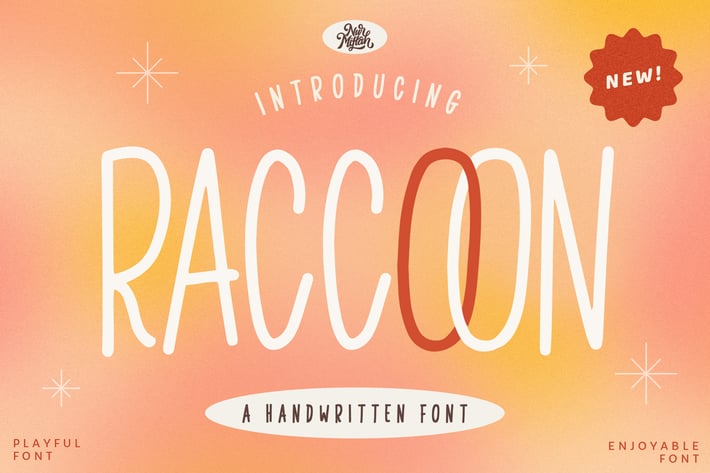
Raccoon Font
Raccoon Font can be used for various media like special events,
invitation, packaging, poster, wedding, movie titles, book titles,
social media, logos, branding, and others.
+ Stylistic Set
+ Ligature
+ Alternates